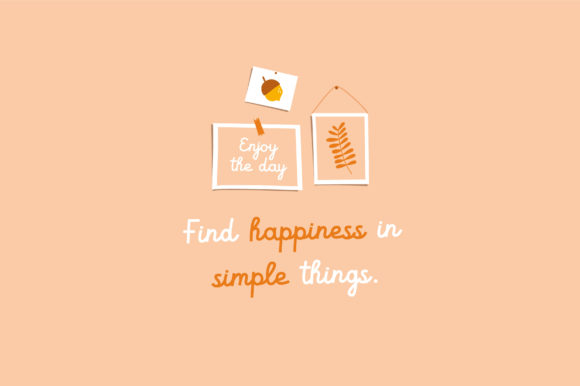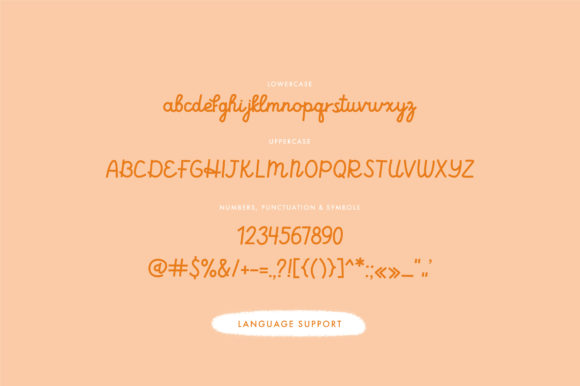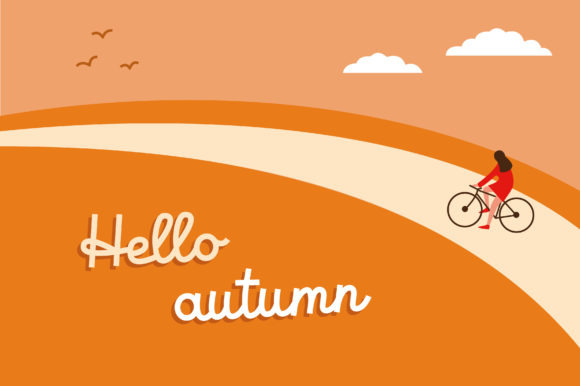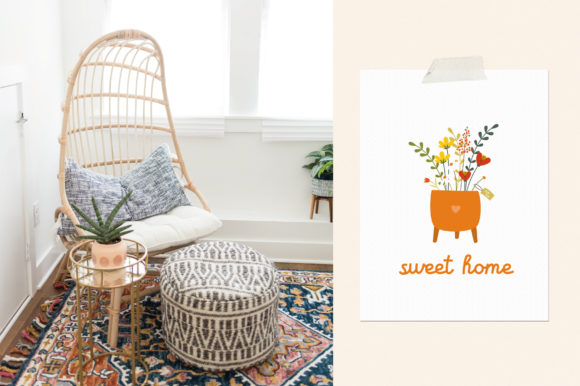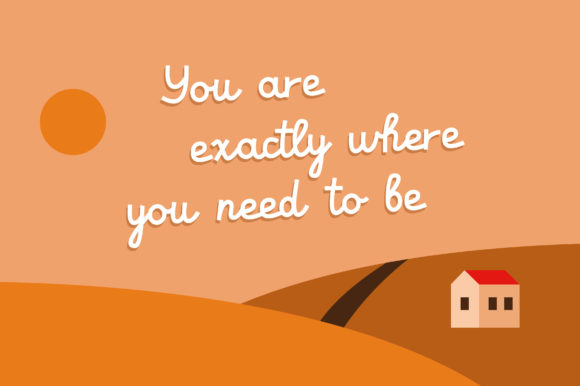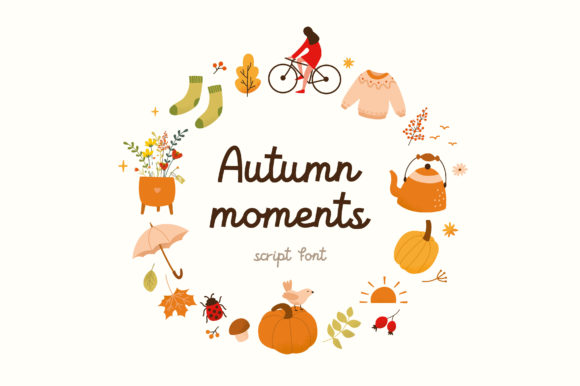
The Magic of Autumn Moments Font: Elevate Your Designs with Warmth and Character
I’ll never forget the design project that led me to discover the Autumn Moments font. I was working on a cozy fall-themed branding campaign for a local coffee shop, and I was struggling to find the perfect font to capture the warmth and essence of the season. The client wanted something that would evoke feelings of comfort, nostalgia, and playfulness, but still look modern and sophisticated. After hours of searching through font libraries and testing various combinations, I stumbled upon Autumn Moments – and it was love at first sight! ✨
The Good: Why Autumn Moments Stands Out
• ✅ Versatility: This font is incredibly adaptable, making it perfect for a wide range of design projects, from branding and advertising to packaging and digital media.
• ✨ Aesthetic appeal: Autumn Moments has a unique, hand-crafted feel that adds a touch of warmth and personality to any design.
• 🔍 Legibility: The font is highly legible, even at smaller sizes, making it ideal for body text and captions.
• 🎨 Customization options: With its extensive range of OpenType features, glyphs, and stylistic alternates, you can easily customize the font to fit your design needs.
The Not-So-Good: A Few Quirks to Keep in Mind
While Autumn Moments is an exceptional font, there are a few minor quirks to be aware of: 🤔
• ⚠️ Limited use of all-caps: While the font looks great in all-caps, some letters may appear slightly awkward or lose their unique character.
• ⚠️ Glyph compatibility: Some glyphs or special characters may not work seamlessly with all design software or platforms.
The Story Behind Autumn Moments: Designer Inspiration
Autumn Moments was designed by [fictional designer name], a talented typographer with a passion for creating fonts that evoke emotions and tell stories. Inspired by the warmth and coziness of fall, [designer name] aimed to craft a font that would capture the essence of the season, while still being versatile and adaptable. The result is a font that’s both nostalgic and modern, perfect for designers looking to add a touch of personality to their work.
Font Name Autumn Moments Font
Author Julia_Volkova
Q: What makes Autumn Moments font unique?
A: Autumn Moments stands out with its hand-crafted feel, extensive OpenType features, and highly legible design, making it perfect for a wide range of design projects.